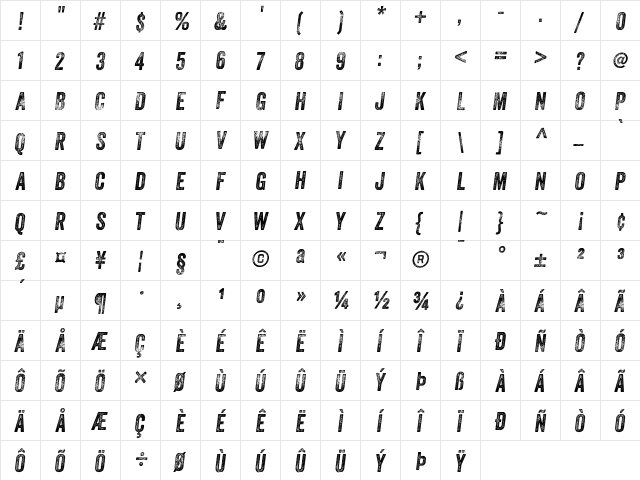
Veneer Three Italic
| Foundry | Ryan Martinson |
| Designer | Ryan Martinson |
Design Context for Veneer Three Typeface
Veneer Three is a composed and adaptable typeface that performs quietly and consistently across a wide range of design contexts. The slanted form adds forward momentum and visual energy.
Pro Tip: Try Veneer Three for annotation and caption copy alongside an upright companion — the contrast in angle creates a dynamic but ordered typographic system.